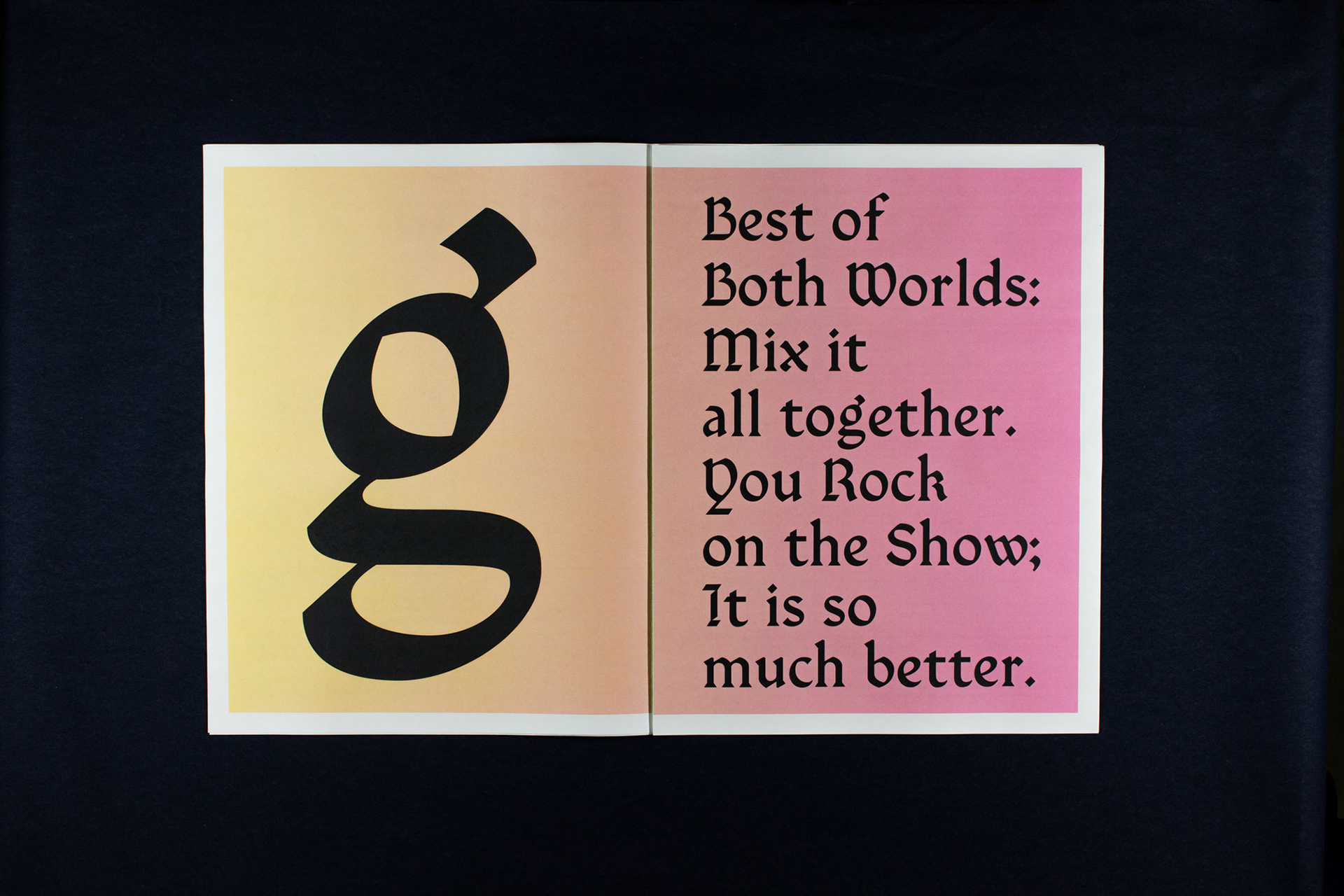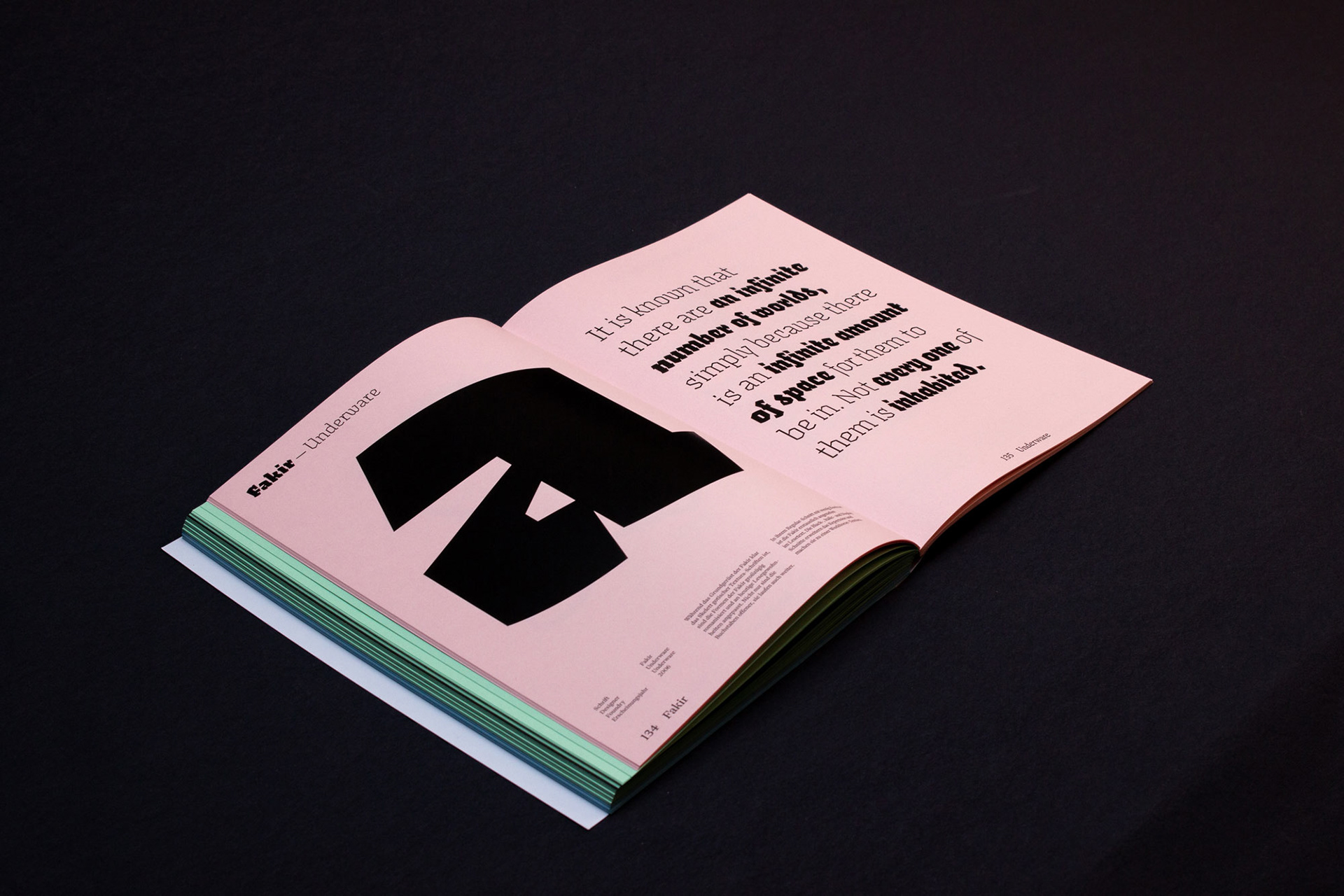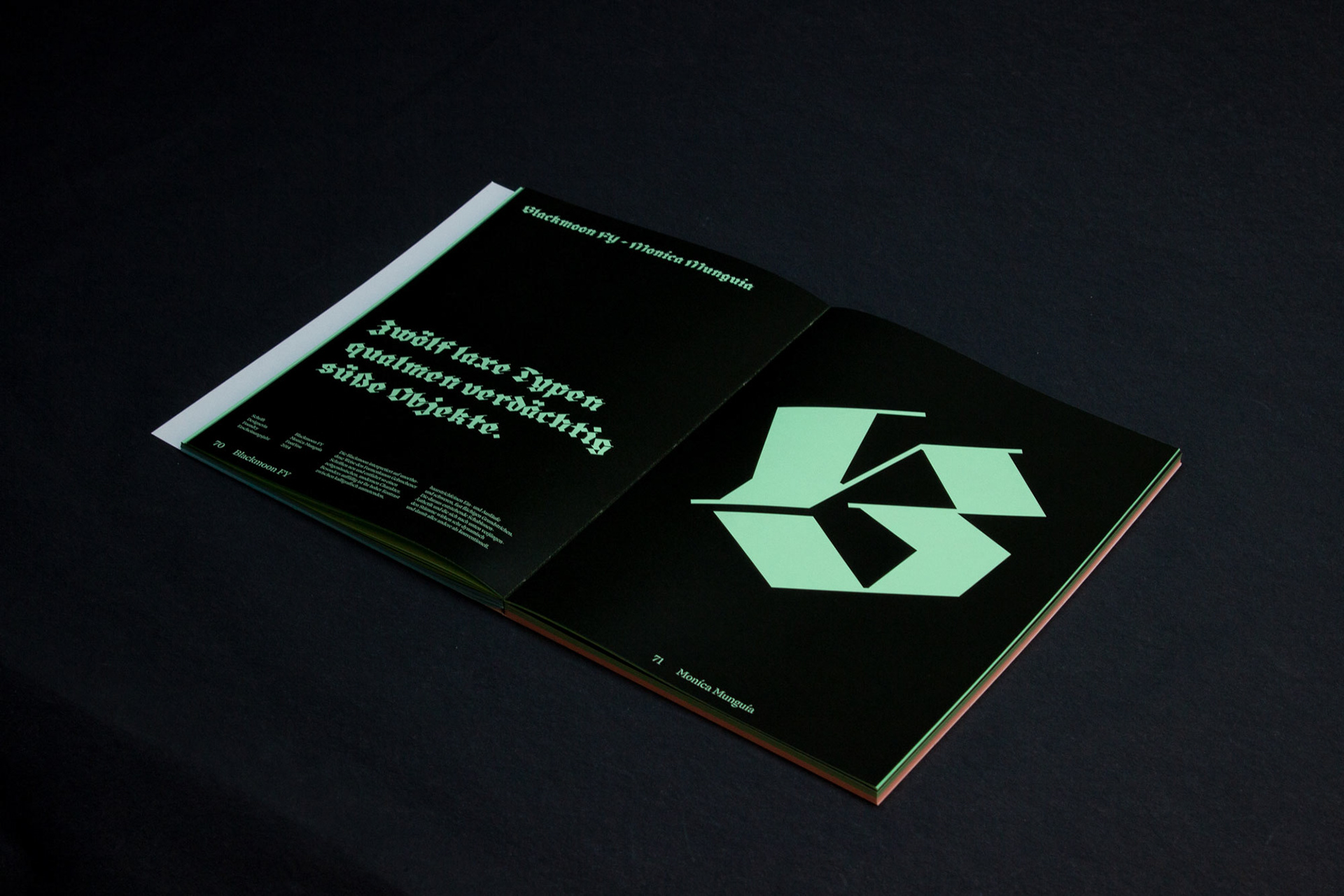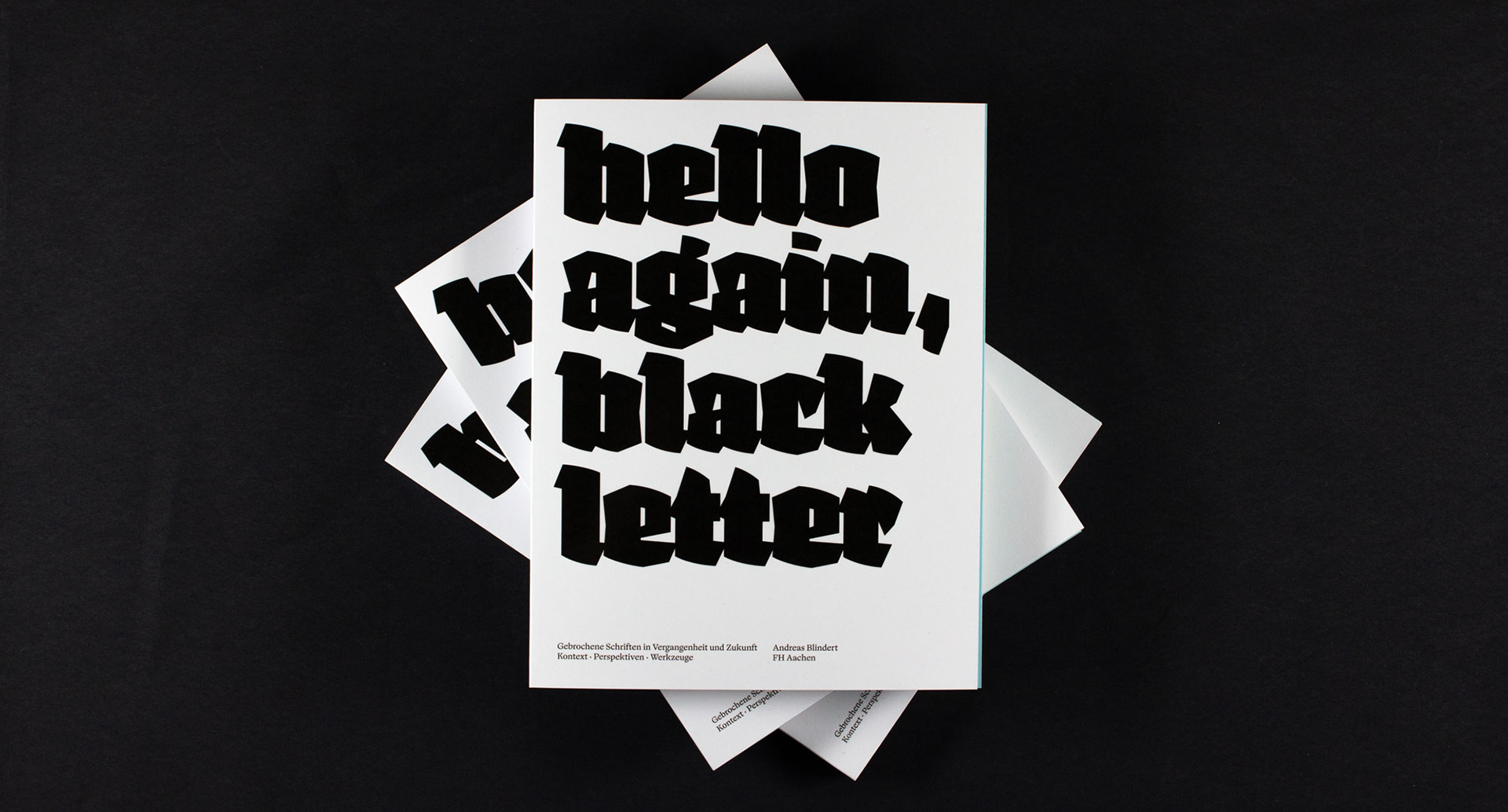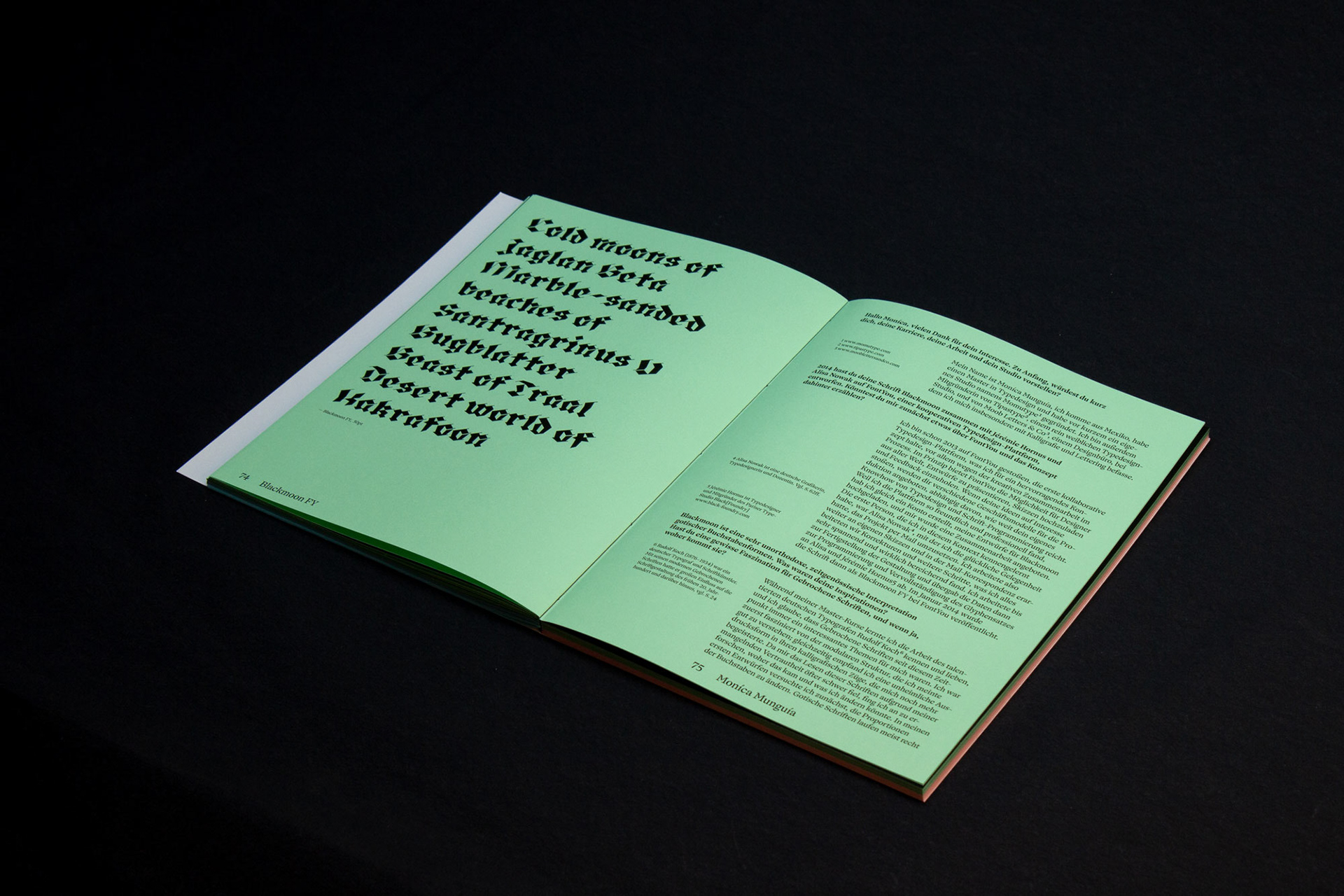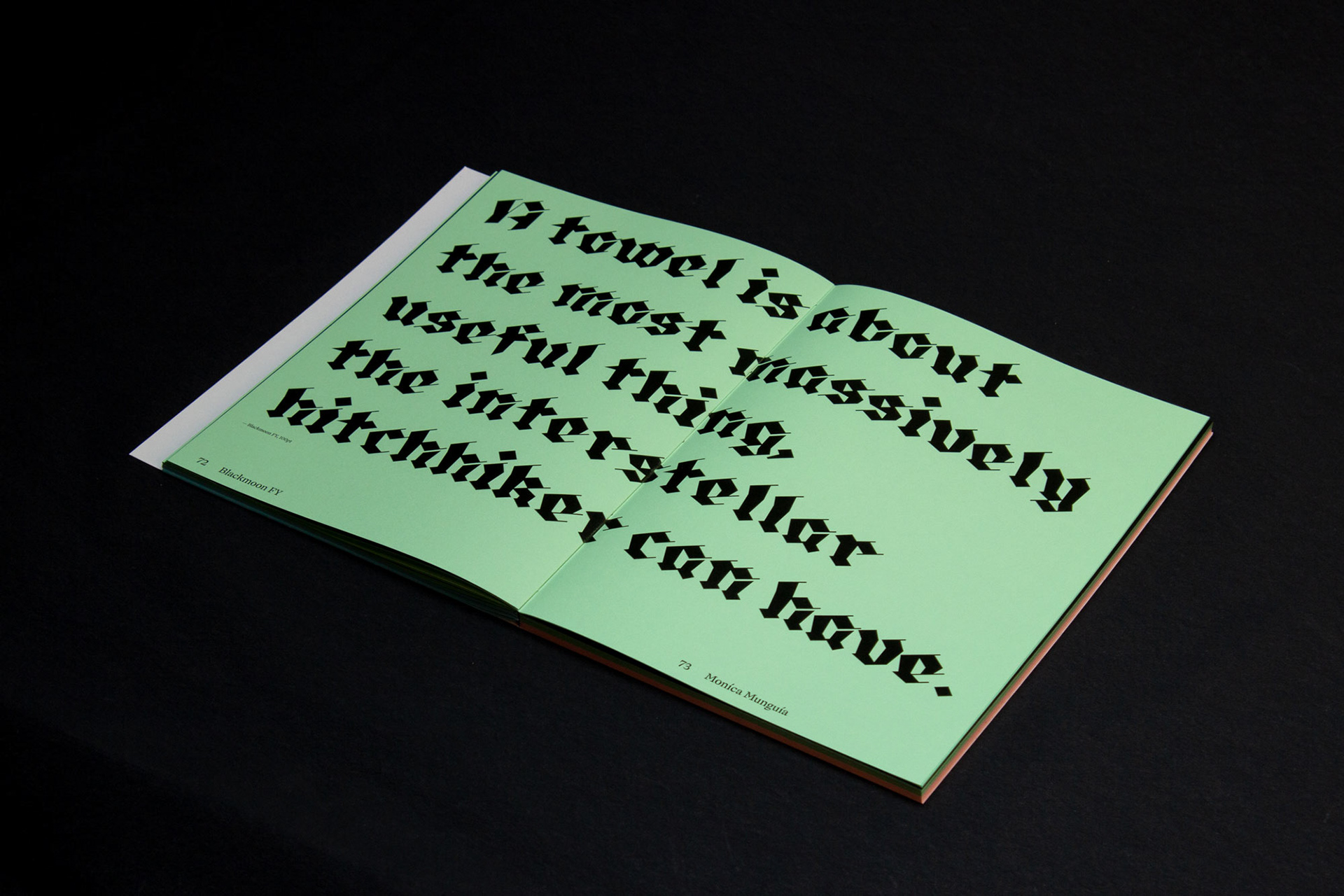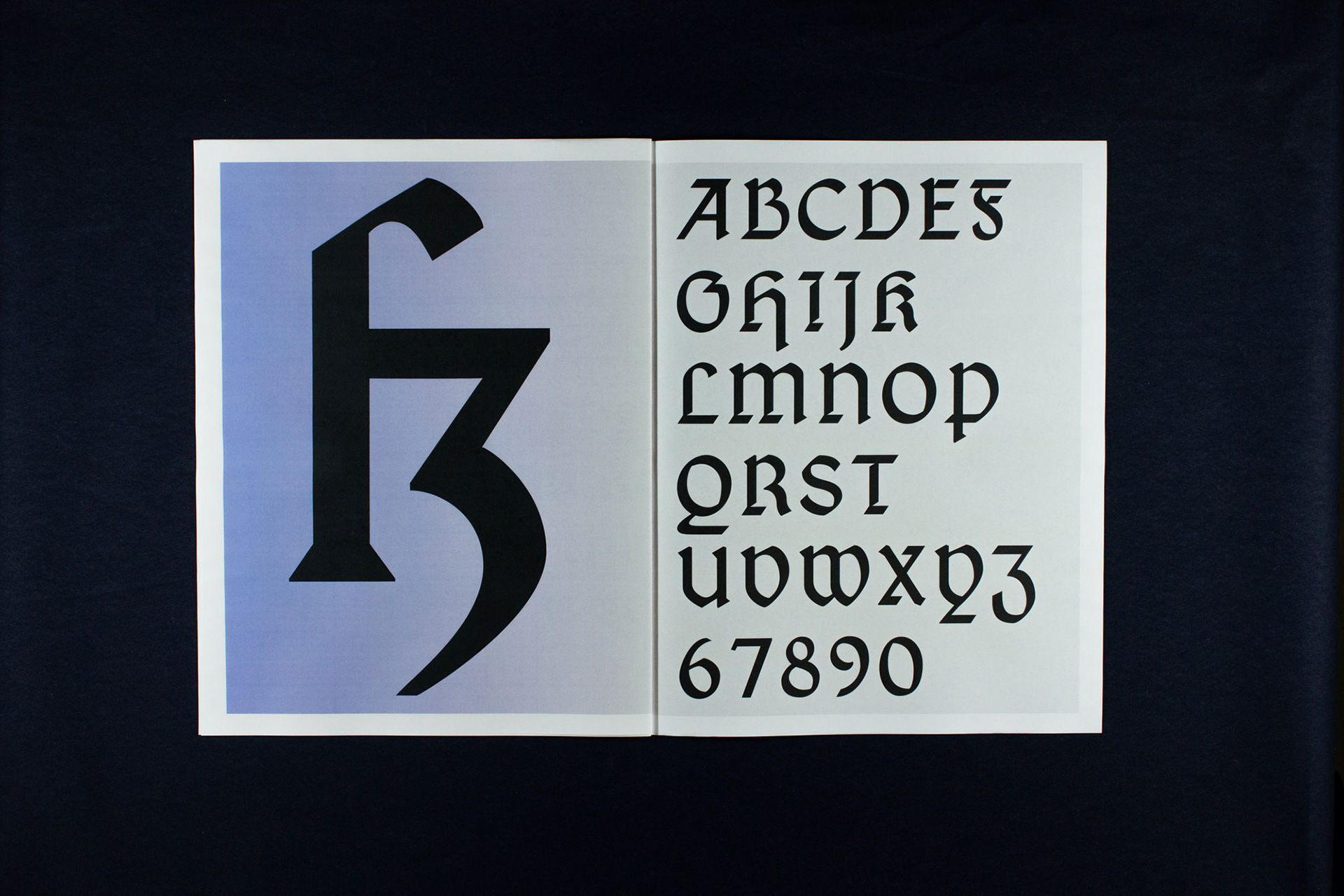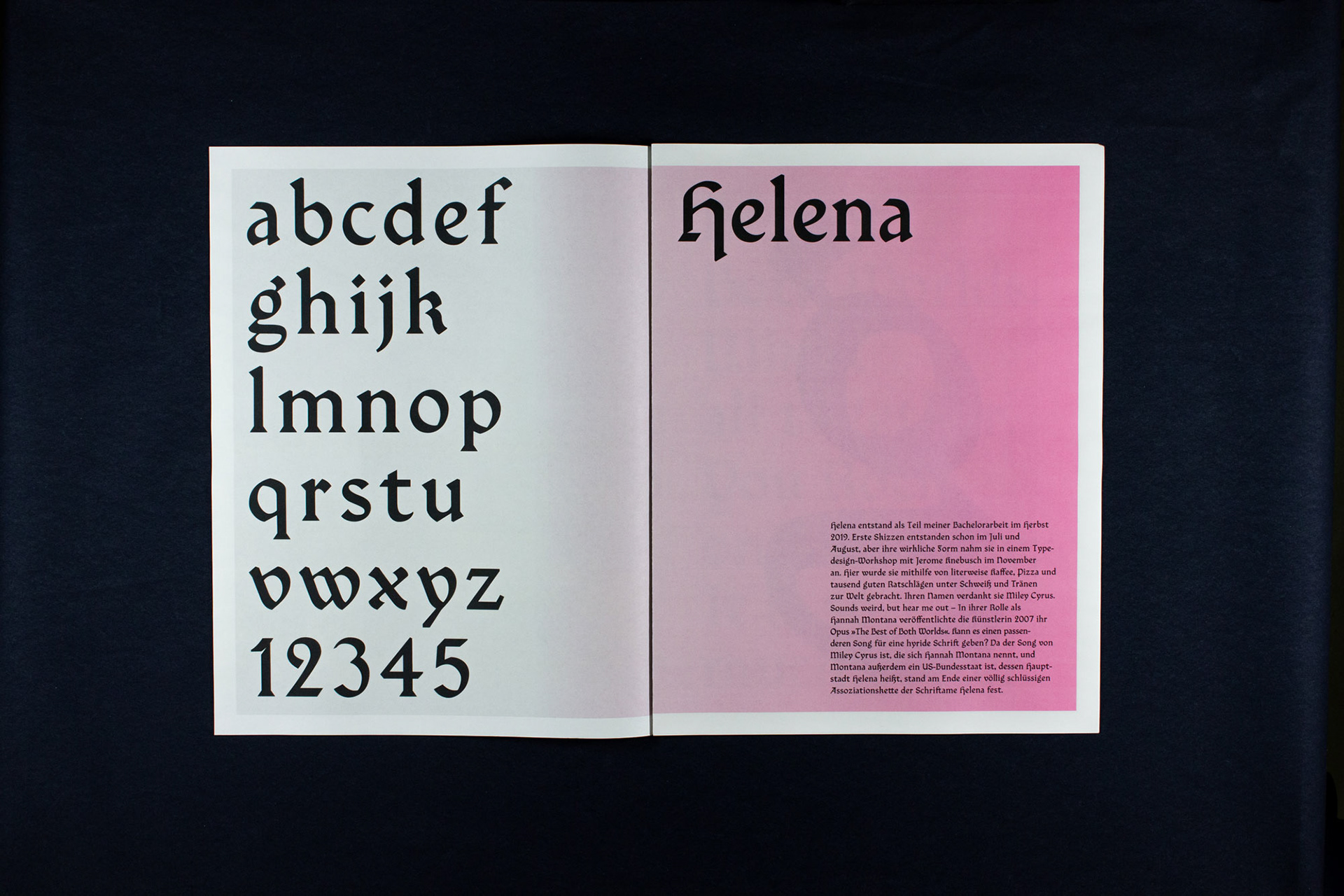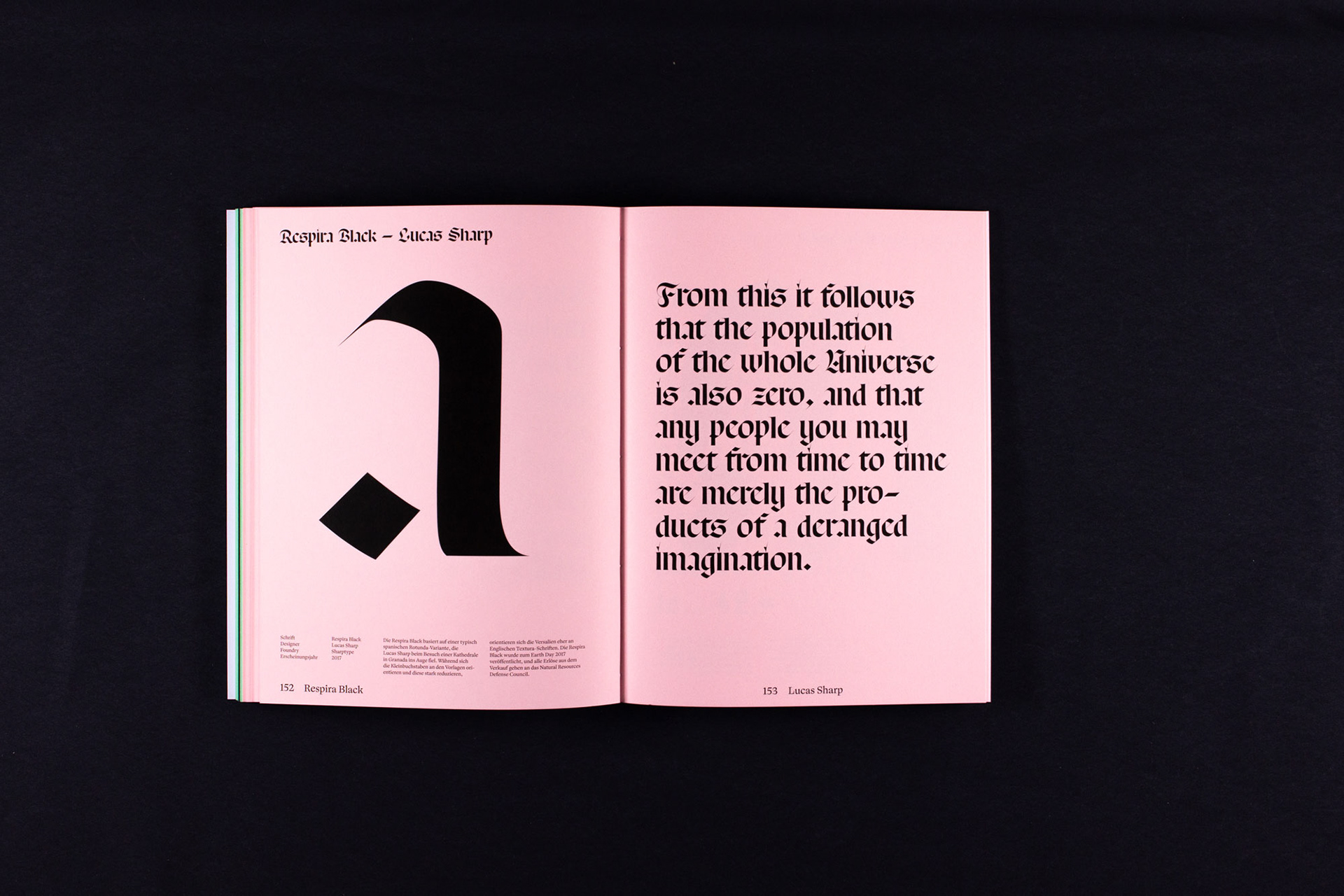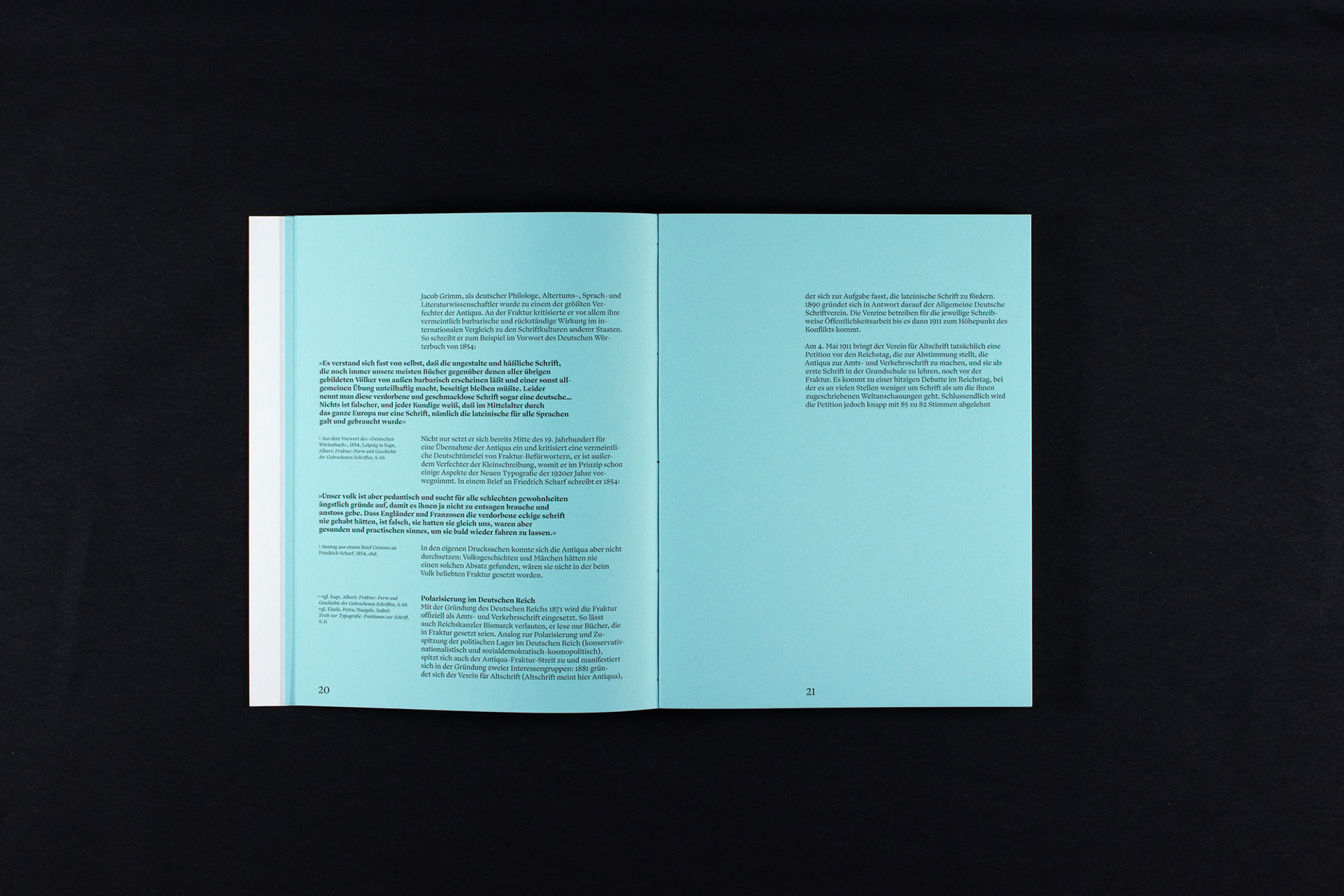
Hello again, black letter is the thesis project of the German @andreasblindert
hello again, black letter is dedicated to the genre of blackletter typefaces, their historical importance, the prejudices against them, but also their gradual return to the world of 21st century design. Although the existing stigmas are reduced by increasing its use, its use often still brings certain associations with it.Provides historical context and interviews with designers from around the world, we see contemporary gothic typefaces and at the same time presents its own typeface Helena, a hybrid of contemporary Romano-Gothic typeface, “hello again, black letter” wants to celebrate the return of the blackletter type and bring the concept of brokenscript to a new generation of designers and give them tools for a new way of seeing blackletter font.
We see in «Perspektiven» interviews ten designers from all over the world, their fonts, their thoughts and perspectives on blackletter typeface. Interviewed among others were ason and Lindsay Mannix @polygraphcreative, Daan Jesper Kars & Casper Herselmann @daankars & @attak, Alisa Nowak, Mónica Munguía @momutype, Daniel Sabino @blackletra, Leo Colalillo @leocolalillo, Alexandre Saumier Demers, Simon Bent @studio__io Nóra Békés, Hugo d'Alte @hugoalte
Images of the interview he conducted with me from Black Moon
More images of other projects from the interviewees